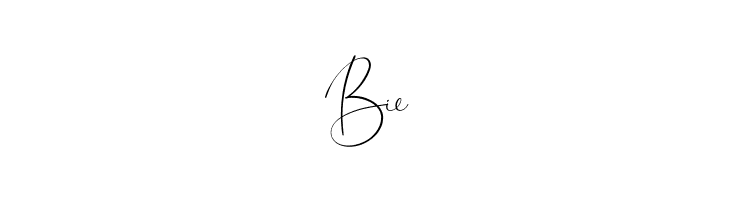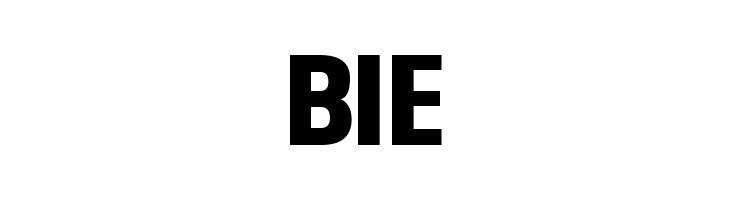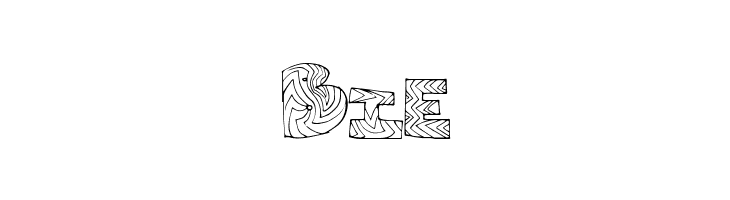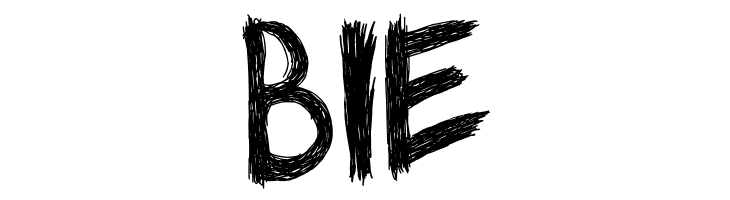
A casual, handwritten font with varied stroke thickness and a playful appearance.
A bold, decorative font with intricate geometric patterns.
A playful, flowing script font with elegant loops and a modern charm.
A bold, hand-drawn font with a rough, textured appearance.
A decorative blackletter font with medieval manuscript influences.
An elegant serif font with high contrast and flowing curves.
A whimsical, elegant cursive font with flowing lines and sophisticated curves.
A bold, modern sans-serif font with strong, uniform strokes.
A geometric, modern font with clean lines and angular shapes.
A bold, angular, and italicized font with a dynamic and impactful style.